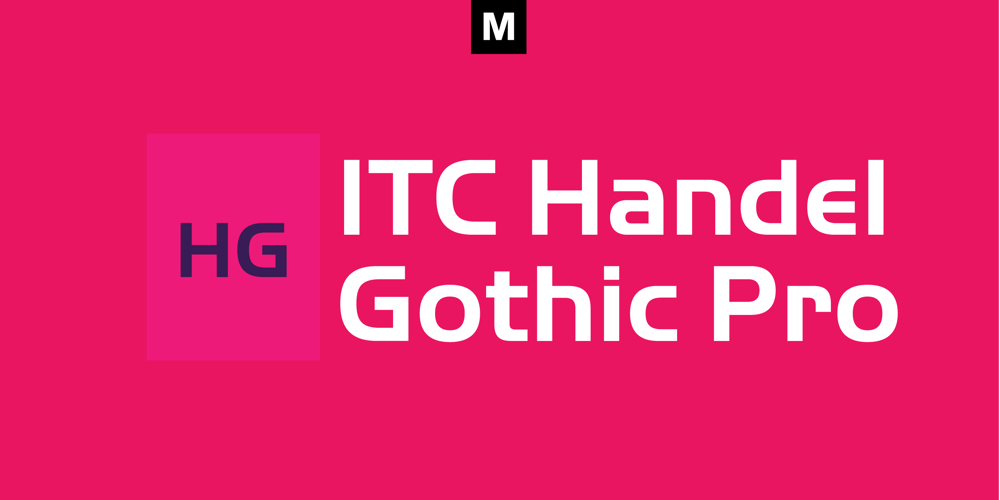
ITC Handel Gothic Font Family was designed by Rod McDonald, Donald Handel and published by ITC. ITC Handel Gothic contains 10 styles and family package options. The Handel Gothic? typeface has been a mainstay of graphic communication for over 40 years – all the while looking as current as tomorrow. Designed by Don Handel in the mid-1960s, and used in the 1973 United Airlines logo developed by Saul Bass, Handel Gothic was an instant success when released to the graphic design community. Its generous lowercase x-height, full-bodied counters and square proportions make the design highly readable at a wide range of sizes. Handel Gothic’s slightly idiosyncratic character shapes gave the face a futuristic look 40 years ago that retains its power today. In addition, its Uncial-like lowercase is instantly identifiable – and unique among sans serif typestyles. Award-winning type designer Rod McDonald was attracted to the simple, decisive forms of the original, but he felt the design needed to be refined and updated. ?One of my goals was to bring a modern typographic discipline to what was really an old phototypesetting font.? To achieve his goal, McDonald re-proportioned every character and balanced the delicate relationship between the curves and the straight strokes. He also added a number of alternate characters to extend the range of the design. ?I wanted to give designers a large enough character set so they wouldn’t feel constrained in what they could do. I want them to be able to play with the fonts, not just set words.? McDonald enlarged the family from the single-weight original to five weights, each with a full suite of alternate characters.In 2015 Nadine Chahine designed matching arabic weights to this family.